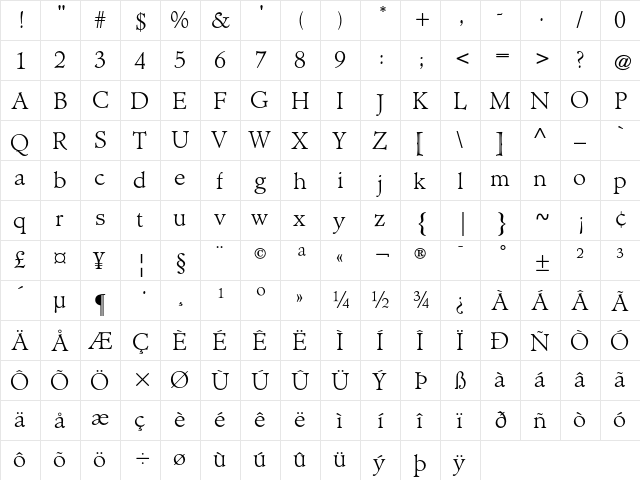
Administer AT Light Regular
Design Context for Administer AT Light Typeface
Administer AT Light offers clean, dependable letterforms without strong stylistic allegiance, making it a practical choice for designers who need flexibility. The delicate stroke weight brings airiness and refinement to layouts.